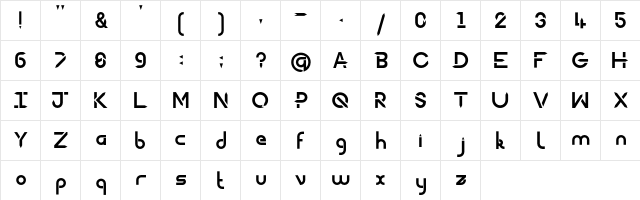
Motus Partem Bold
| Designer | Joshua Entwistle |
Design Context for Motus Partem Typeface
Motus Partem offers clean, dependable letterforms without strong stylistic allegiance, making it a practical choice for designers who need flexibility. Its bold stroke weight gives it real presence on the page.
Pro Tip: Pair Motus Partem with a font of contrasting weight or personality to build a more expressive typographic hierarchy.